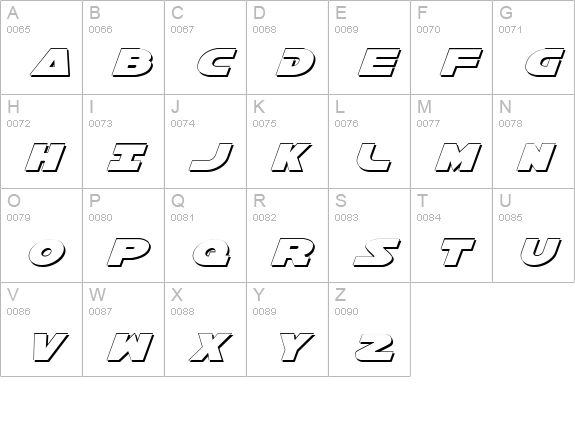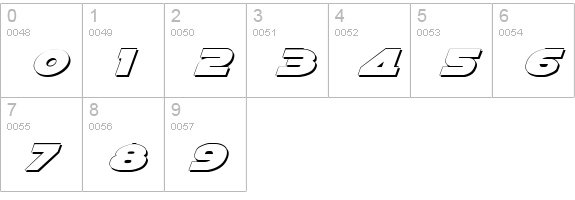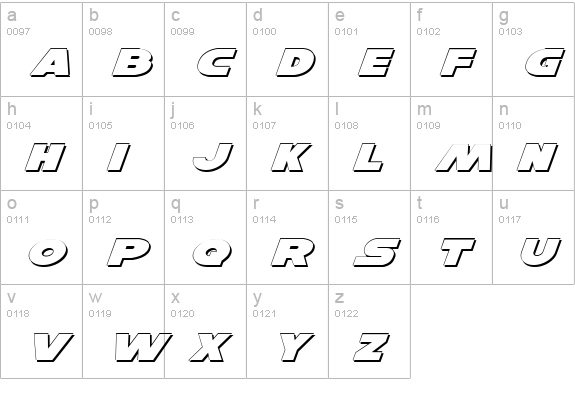
Han Solo Exp Shadow Italic Font Details
Han Solo Exp Shadow Italic is a distinctive, italic variant in the Han typeface family \xE2\x80\x94 well suited to design and typography projects.
Han Solo Exp Shadow Italic font is a stylish and eye-catching typeface that is perfect for adding a touch of adventure and excitement to your designs. This font features bold, slanted letters with a shadow effect, giving it a dynamic and three-dimensional appearance. Whether you're designing a poster, logo, or headline, this font will make a bold statement and grab the attention of your audience. The Han Solo Exp Shadow Italic font is not only visually appealing but also versatile. Its slanted and shadowed characters add depth and dimension to any project, making it suitable for a wide range of design applications. From movie titles to book covers, this font will bring your designs to life and create a captivating visual experience. One of the best things about the Han Solo Exp Shadow Italic font is that it is available for free. That's right, you can download this amazing font without spending a dime. FontsMarket.com is where you can freely access and download this font, allowing you to use it in any personal or commercial project without any restrictions. So why wait? Add a touch of excitement and adventure to your designs with the Han Solo Exp Shadow Italic font. Download it for free at FontsMarket.com and unleash your creativity today.